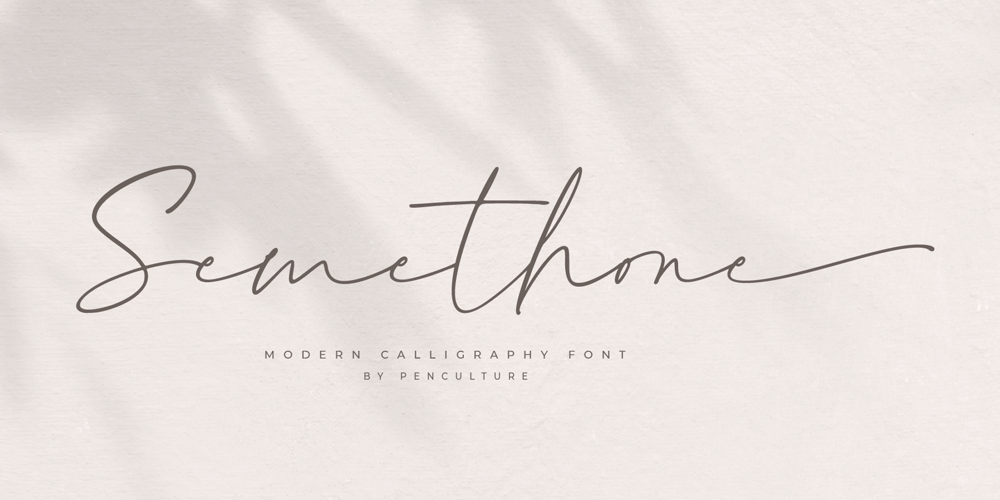
Semethone Font Family was designed by Revo Farsiky and published by Pen Culture. Semethone contains 1 styles and family package options. Semethone is modern calligraphy font with chic style. It’s perfect for branding, wedding invitation, card, signature, watermark for photography and many others.Semethone come with beautiful set of hand lettered uppercase and lowercase, punctuation, multilingual language. This font also equipped with beautiful swashes and ligature which will be perfect for your design project.I really hope you enjoy it – please do let me know what you think, comments & likes are always hugely welcomed and appreciated. More importantly, please don’t hesitate to drop me a message if you have any issues or queries.Thank you